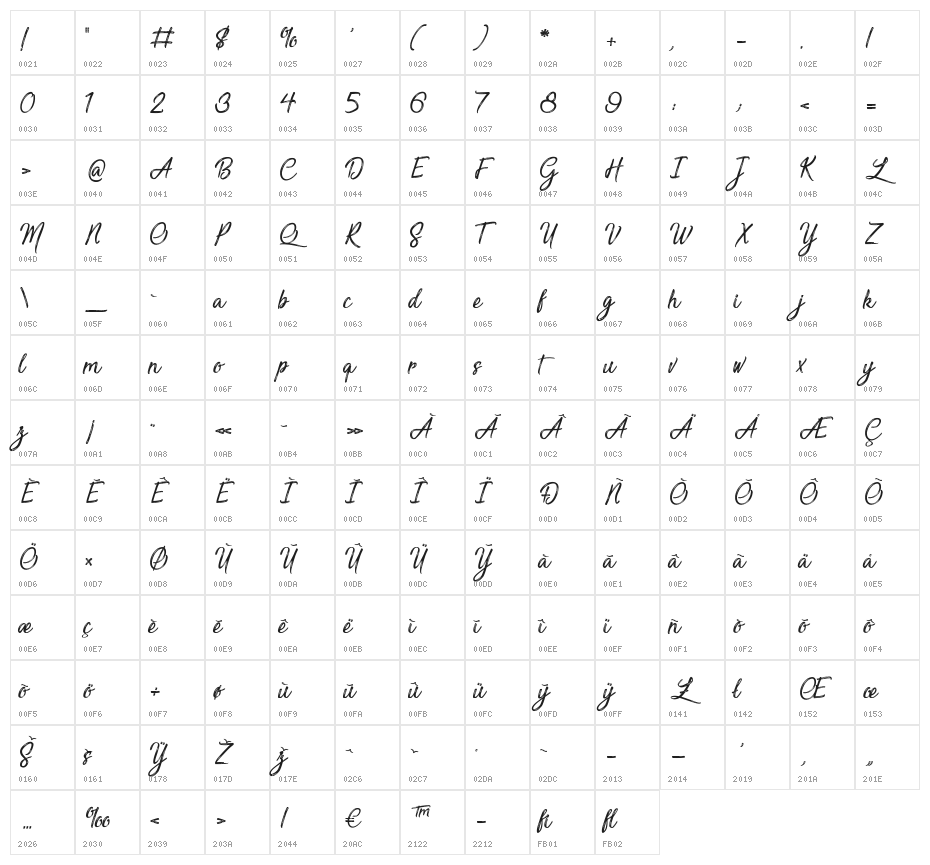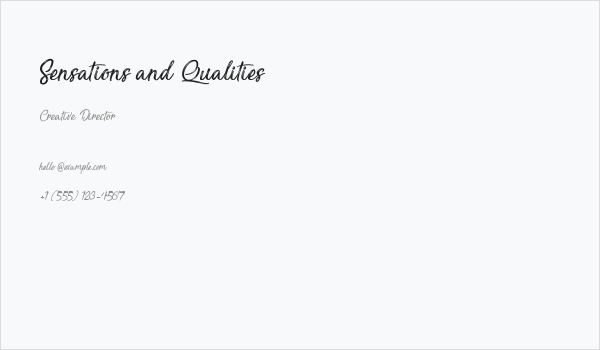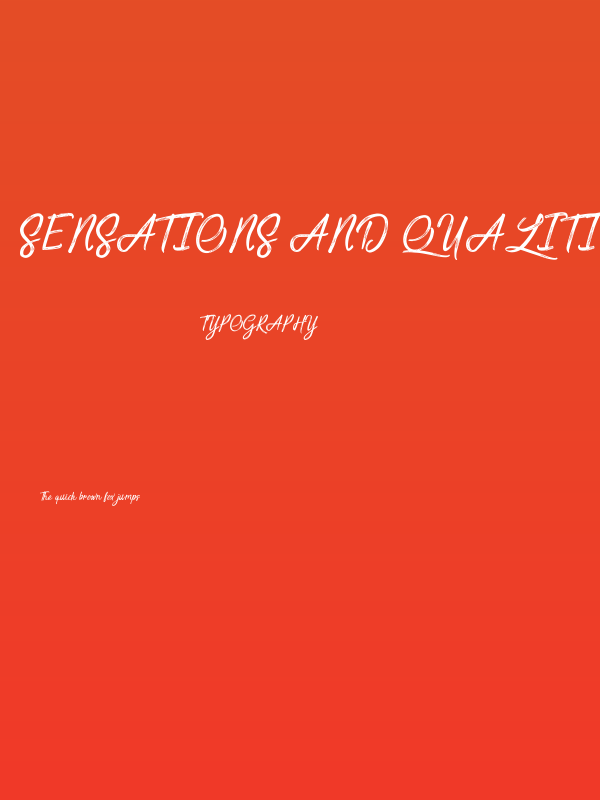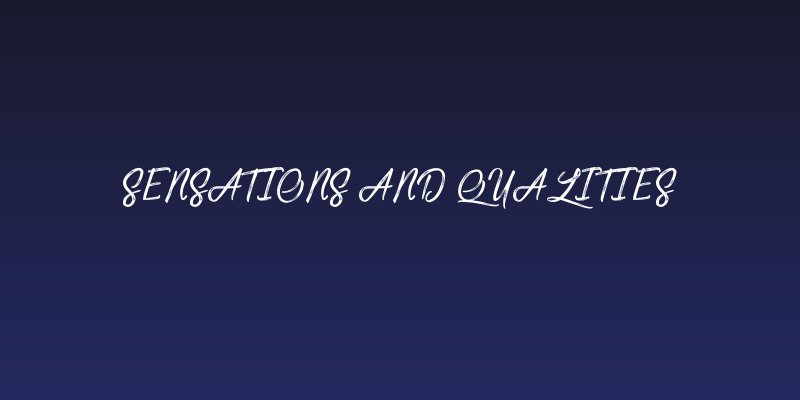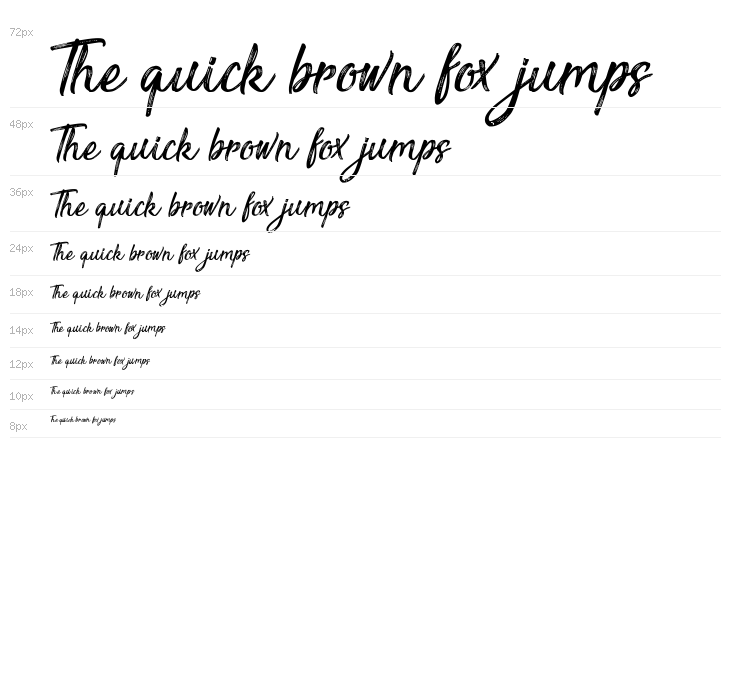
Sensations and Qualities Font
Sensations and Qualities Description
This font exudes a dynamic and expressive style, characterized by its fluid, cursive script that mimics the natural flow of handwriting. The strokes are bold and confident, with a slight slant that adds to its energetic appearance. Each letter is distinct, with varying thicknesses that create a sense of movement and rhythm. The uppercase letters are particularly striking, with elaborate loops and swirls that give them a decorative flair. The lowercase letters maintain a more consistent flow, ensuring readability while still retaining the font's artistic essence. Numbers and special characters are equally expressive, maintaining the same bold and flowing style. This font is perfect for projects that require a personal touch or a sense of elegance and creativity.